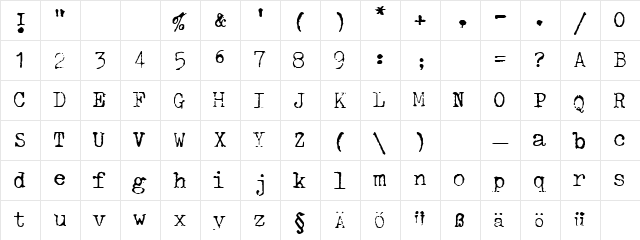
GF Halda Normal Normal
Design Context for GF Halda Normal Typeface
GF Halda Normal takes a measured approach to typography — its balanced proportions and neutral character make it a reliable workhorse for both digital and print work.